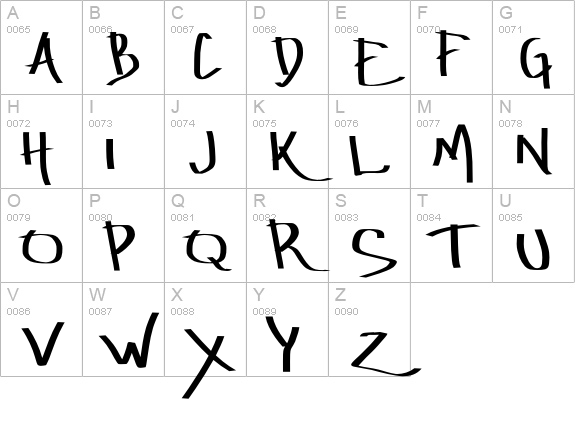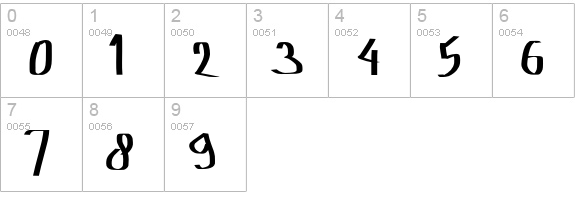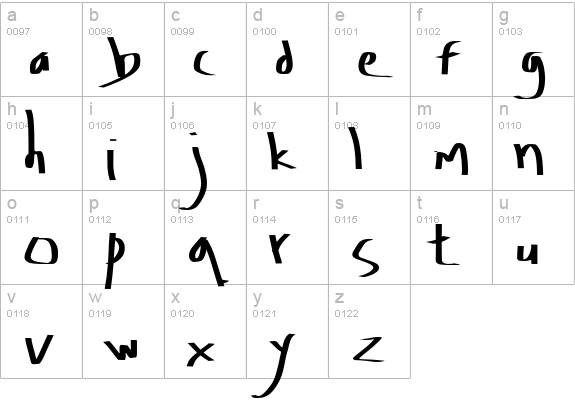
Amburegul Banget Font Details
Introducing Amburegul Banget, a stunningly artistic and versatile font that will captivate your audience with its unique and expressive design. This font is perfect for adding a touch of elegance and sophistication to any project, whether it's a logo, branding, packaging, or website design. What sets Amburegul Banget apart is not only its exquisite beauty, but also the fact that it is free. Yes, you read that right – this extraordinary font is freely available to download at FontsMarket.com. Now you can enhance your creative endeavors without worrying about breaking the bank. With its intricate details and graceful curves, Amburegul Banget will effortlessly elevate your designs to new heights. Its stylish and artistic appeal will instantly grab attention and leave a lasting impression on your audience. Whether you're aiming for a modern and sleek look or a more vintage and nostalgic vibe, this font has got you covered. The versatility of Amburegul Banget knows no bounds. Its wide range of glyphs and characters allows for seamless integration into various design projects, ensuring that every word and phrase appears flawlessly. From headlines to body text, this font will bring your words to life and make them truly unforgettable. Downloading Amburegul Banget from FontsMarket.com is a breeze. Simply visit the website, locate the font, and click the download button. Within seconds, you'll have this incredible font at your fingertips, ready to be used in all your creative endeavors. So why wait? Experience the beauty and versatility of Amburegul Banget today. Let your imagination run wild and create stunning designs that will leave everyone in awe. With this free font, the possibilities are endless. Get your hands on Amburegul Banget now and elevate your designs to a whole new level.